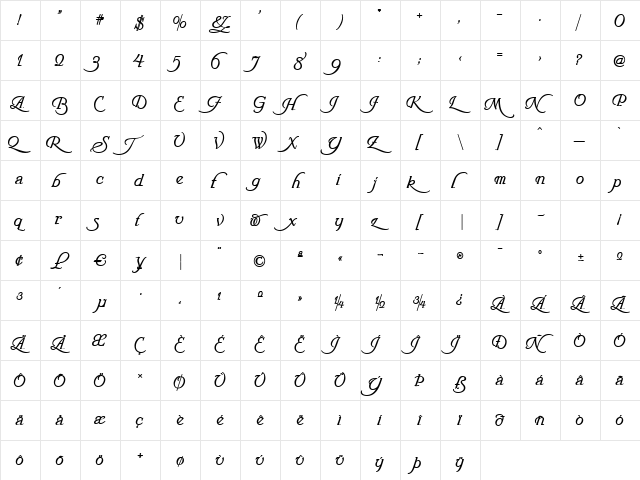
Turbayne Running Hand Regular
Design Context for Turbayne Running Hand Typeface
Turbayne Running Hand flows with the natural rhythm of handwritten lettering, making it ideal for designs that call for warmth and personal expression.
Font Pairing: Combine Turbayne Running Hand with a simple geometric sans for maximum contrast — the tension between flowing curves and clean structure is a classic typographic pairing.
Pro Tip: Pair Turbayne Running Hand with a clean sans-serif for supporting text. The contrast between fluid script and geometric structure creates an elegant typographic hierarchy.